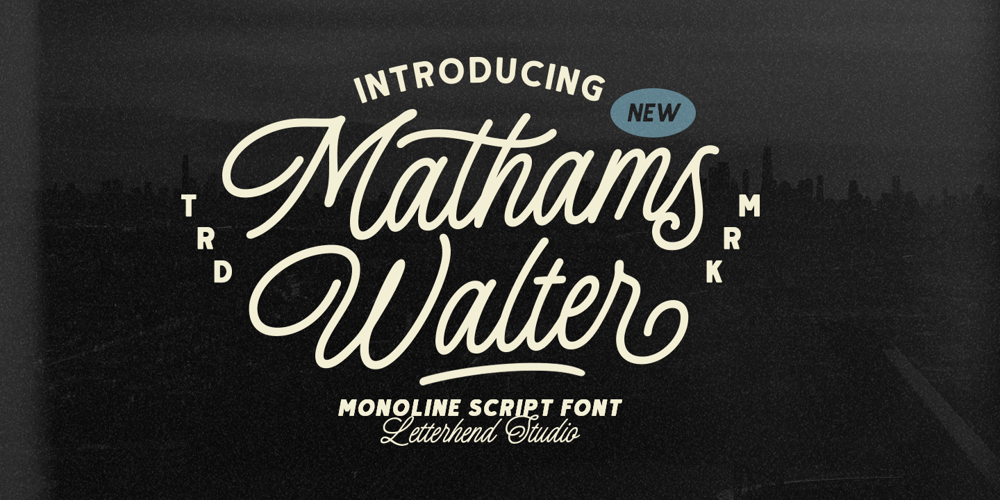
Mathams Walter Font Family was designed by Hendry Juanda and published by Letterhend. Mathams Walter contains 1 styles and family package options. Mathams Walter is a casual monoline typeface with a charmingly rough version, adding an artistic touch to your designs. This versatile font is designed to capture attention and bring a touch of elegance to any project.Features : Uppercase & lowercase Numbers and punctuation Alternates & Ligatures Multilingual PUA encoded